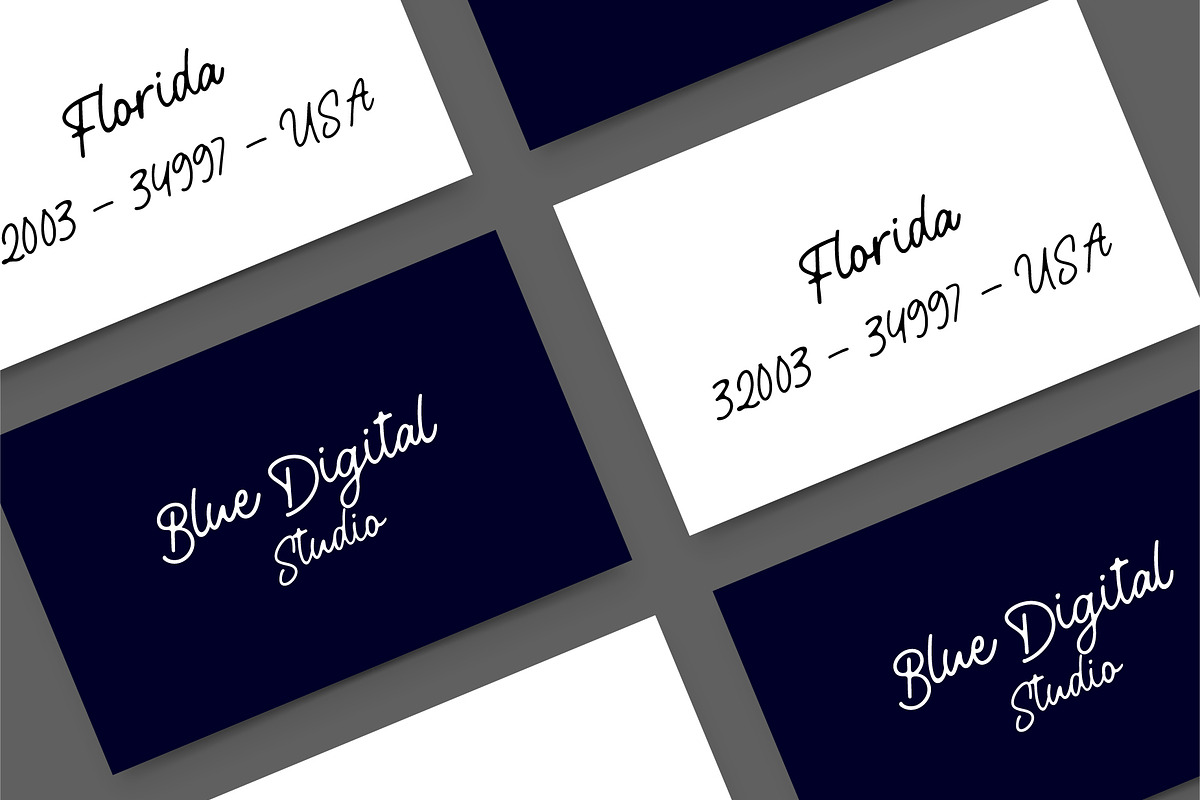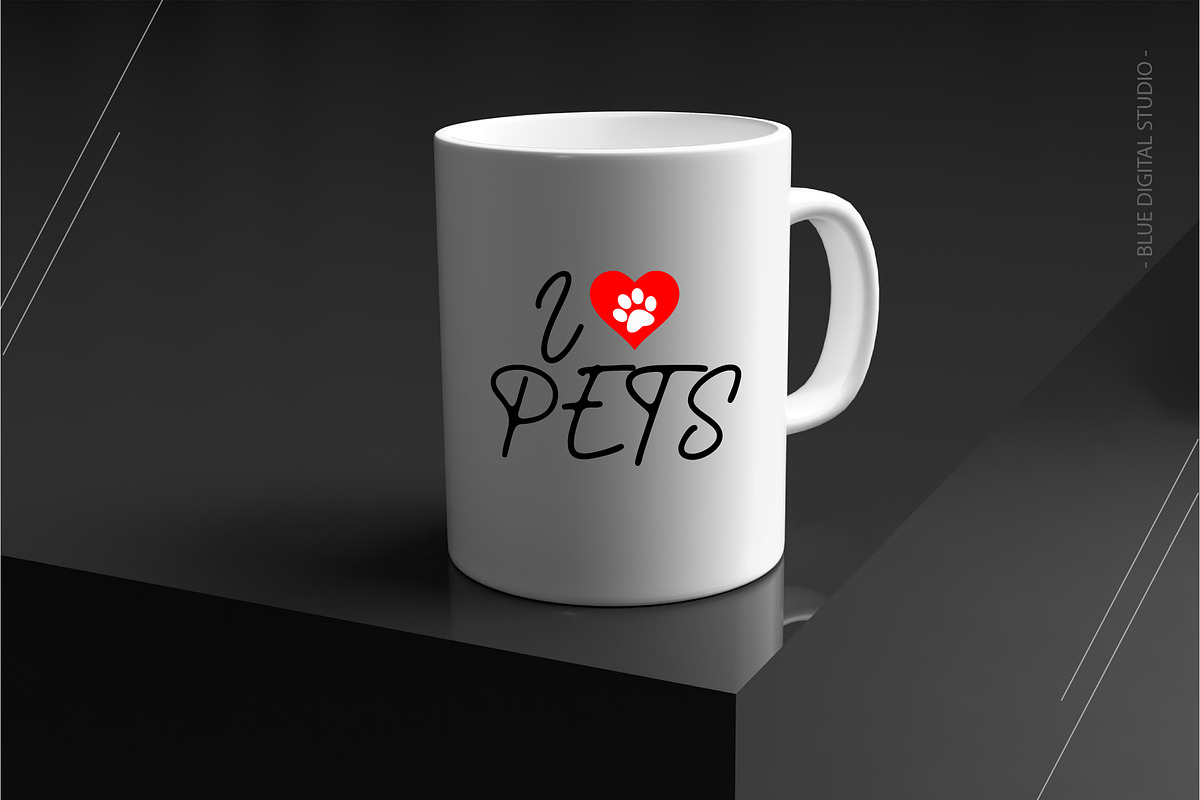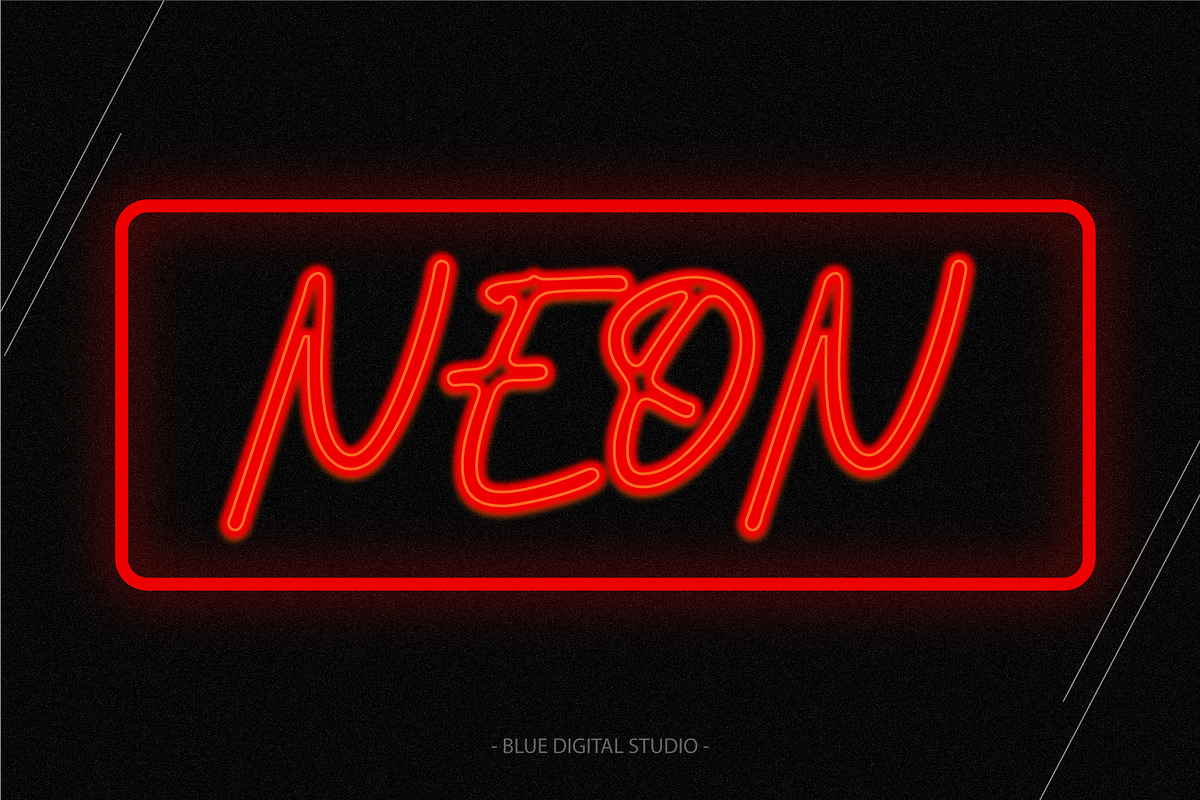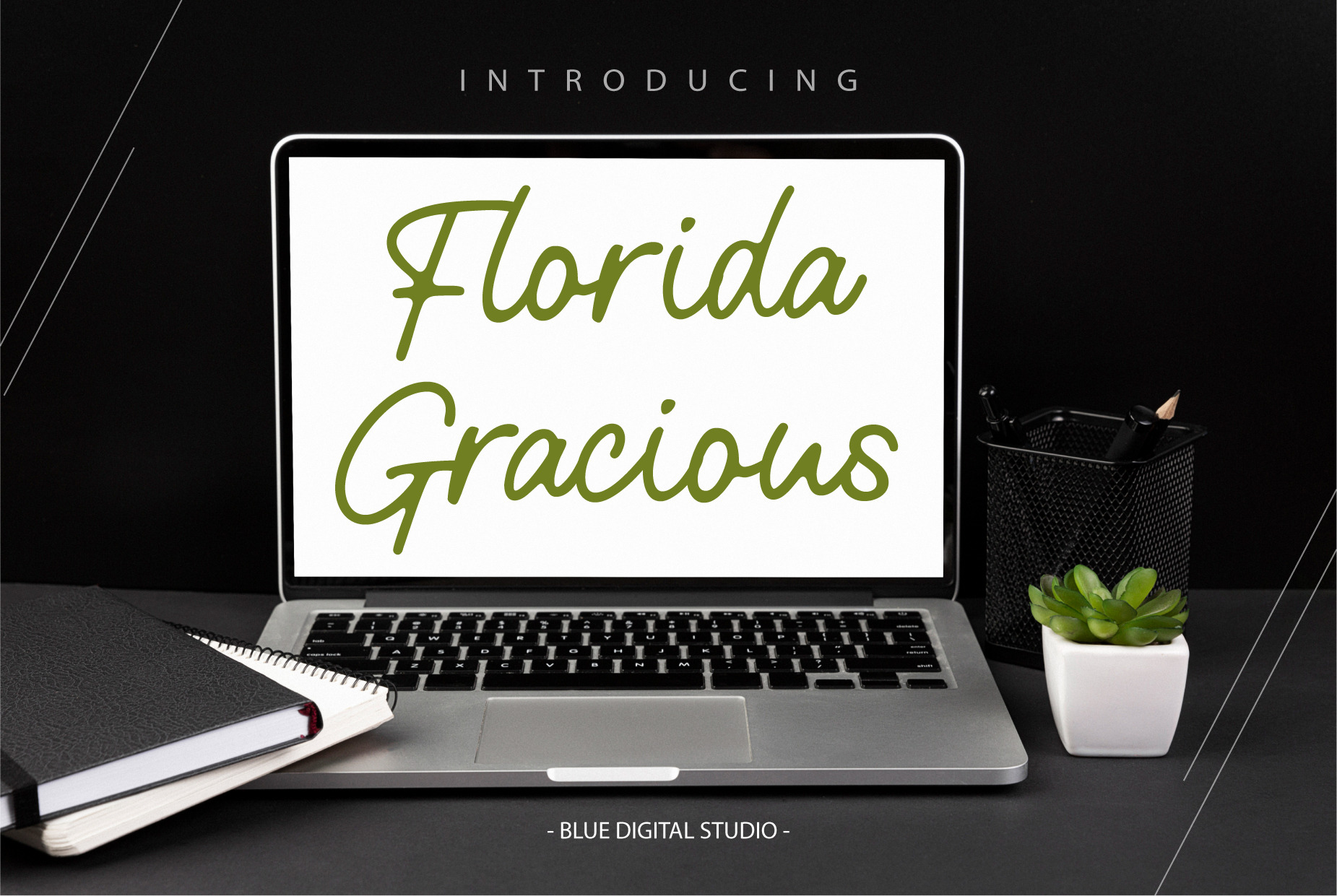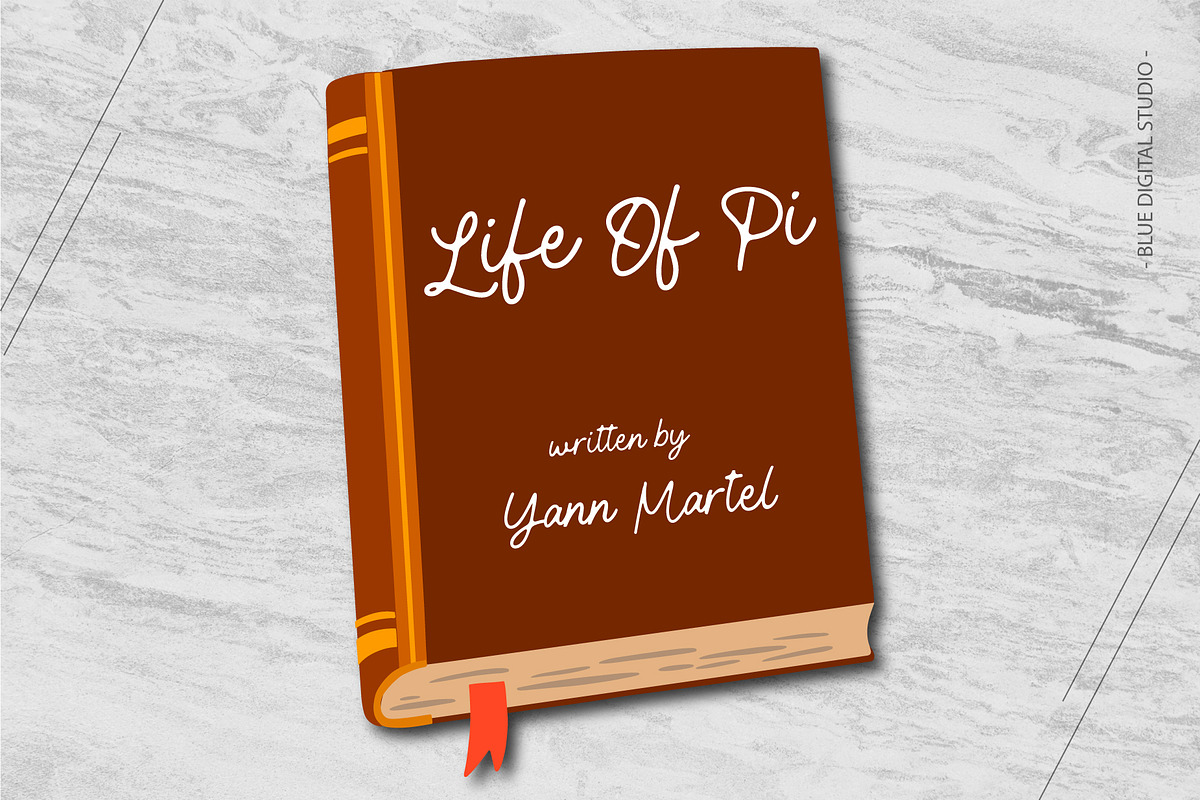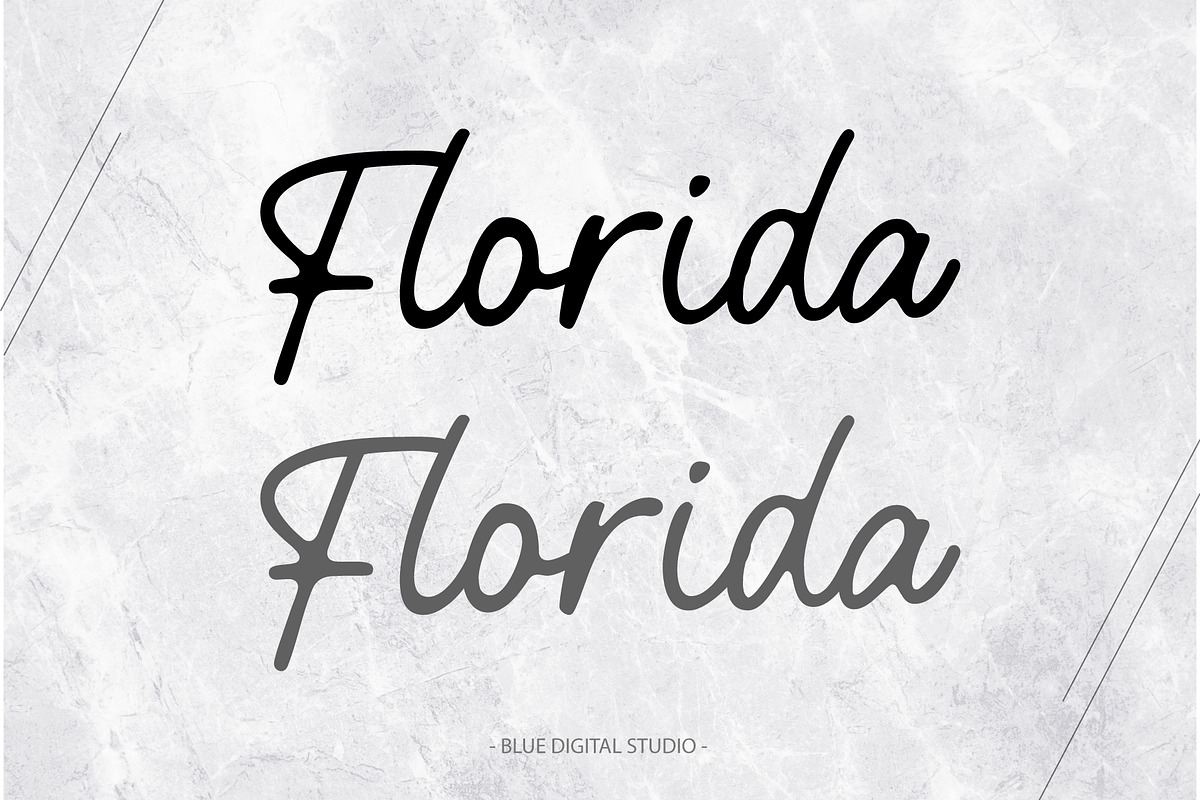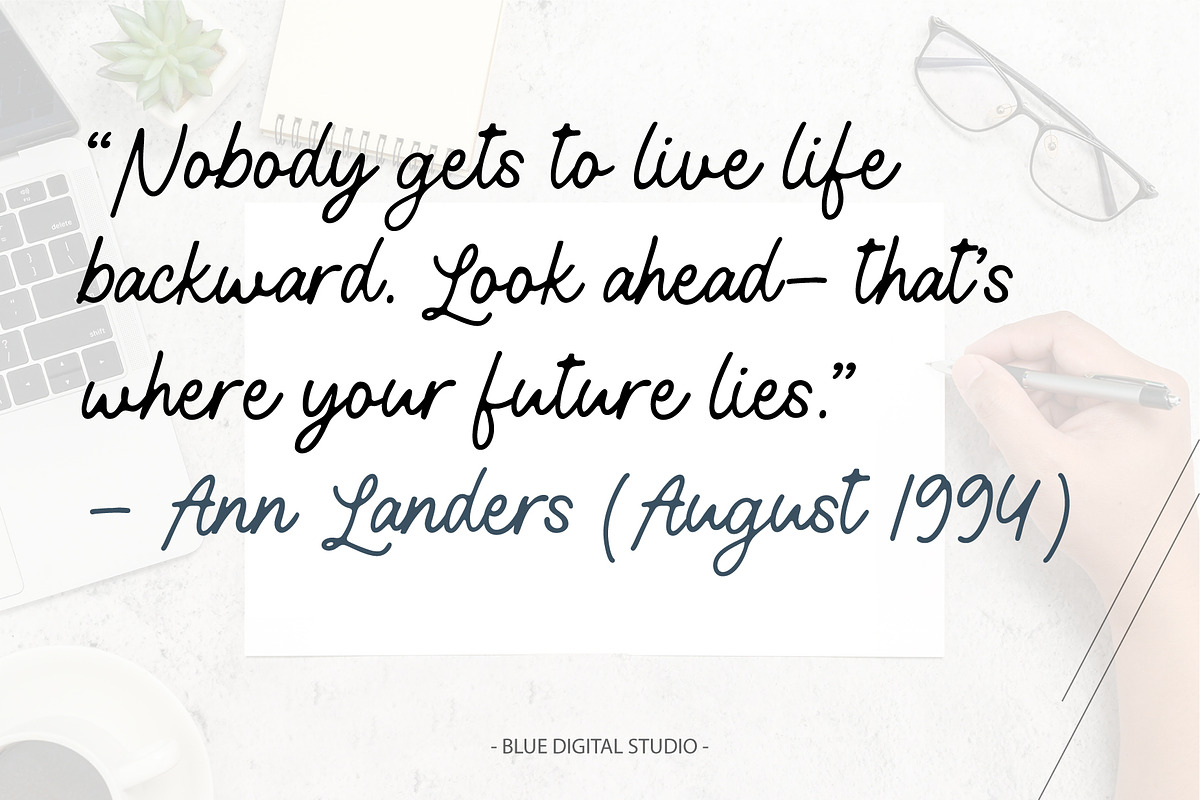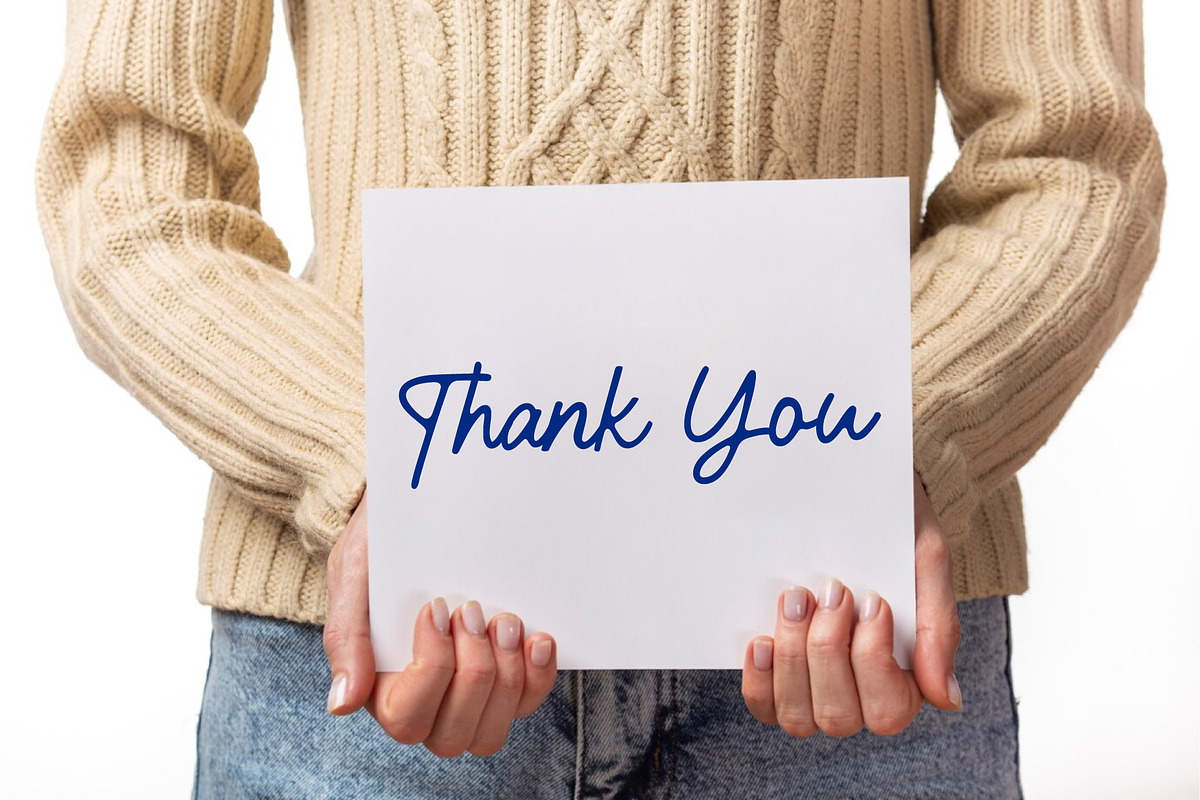
Florida Gracious Font | New Font
Florida Gracious Font – Elegant Serif Typeface for Branding & Design
Add timeless elegance and modern sophistication to your projects with Florida Gracious Font, a premium serif typeface perfect for headlines, titles, logos, and short texts. This versatile and stylish font is ideal for branding, advertising, marketing campaigns, social media graphics, websites, T-shirt prints, packaging, invitations, editorial layouts, and both vintage and contemporary designs.
Whether you’re creating fashion branding, Instagram quotes, wedding stationery, product packaging, posters, flyers, or digital marketing materials, Florida Gracious Font will give your work a distinctive, professional, and elegant look that stands out.
🌟 Why Choose Florida Gracious Font
- Elegant Serif Typeface – perfect for titles, logos, headings, and decorative text
- Luxury Display Font – works for modern and vintage design projects
- Professional Typography – crafted for designers, entrepreneurs, and creative projects
- Multilingual Support – accented characters included for international projects
- Complete character set – uppercase, lowercase, numerals, punctuation, symbols, and functional characters
- Multilingual support – accented characters for global use
- Fully tested for print and digital projects
💡 Perfect For
- Branding & Logo Design
- Advertising & Marketing Materials
- Social Media Templates & Instagram Quotes
- Modern & Vintage Typography Projects
- Posters, Flyers, Magazines & Editorial Layouts
- Websites, Blogs & Digital Design
- Packaging, Labels, Invitations & Business Cards
- Wedding Stationery, Fashion Branding, and Luxury Prints